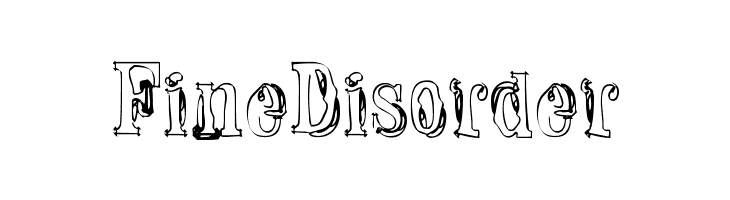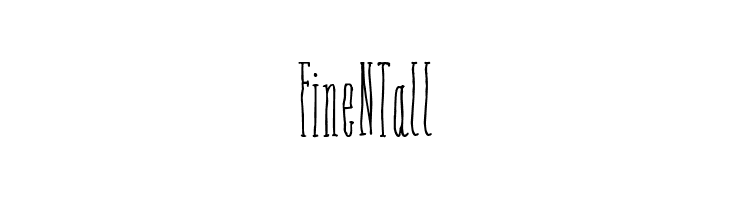
An ornate, decorative font with intricate borders around bold, capitalized characters.
A bold, sketch-style decorative font with a collegiate feel.
An artistic, hand-drawn font with chaotic, energetic strokes.
A bold, distressed font with an eroded, vintage texture.
A bold, distressed font with an eroded texture for a rugged, vintage look.
A bold, distressed font with a vintage, handcrafted appearance.
A bold, rounded, and outlined font with a playful and modern style.
A tall, slender font with a modern and elegant style.
A tall, narrow font with consistent stroke width and a modern, whimsical style.